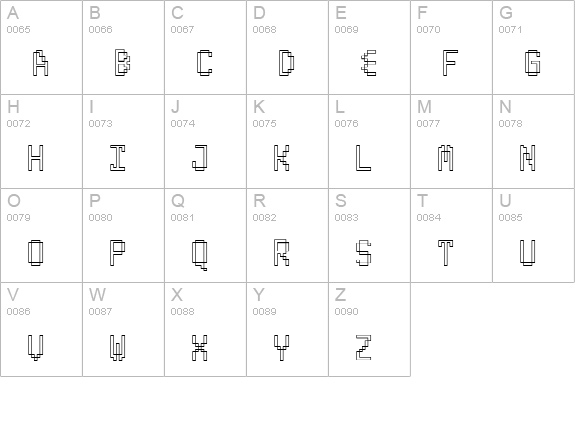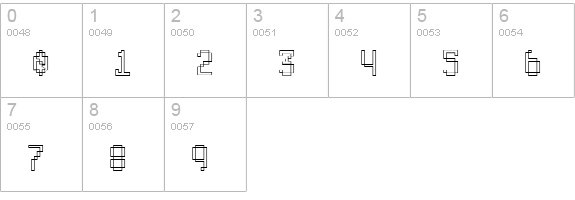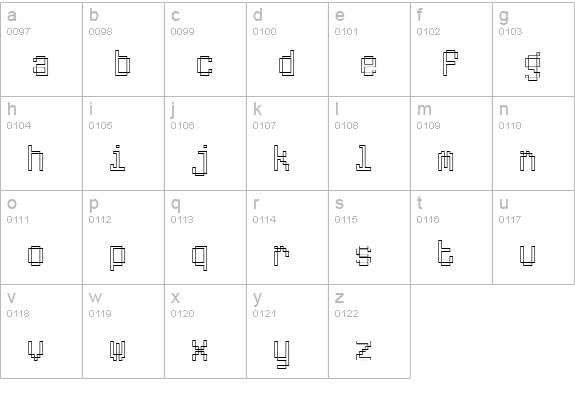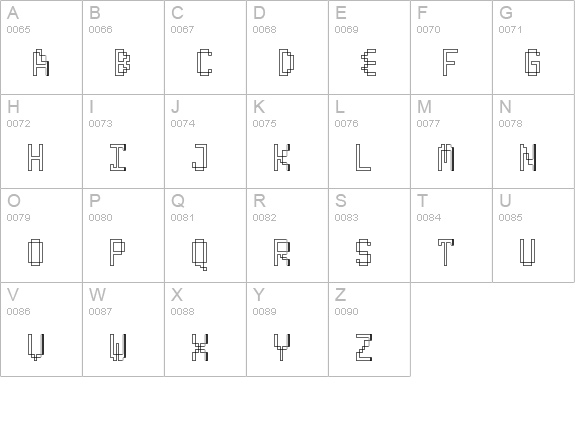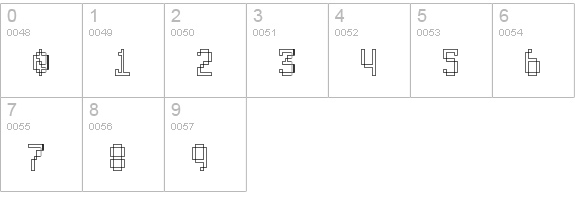
ABS6 Font Details
ABS6 font is a modern and sleek typeface that exudes sophistication and elegance. With its clean lines and sharp edges, this font is perfect for creating a professional and contemporary look in your designs. Whether you are working on a branding project, website design, or any other creative endeavor, ABS6 font will surely make your text stand out. What's even better is that ABS6 font is available for free download at FontsMarket.com. You can easily access this stylish font and enhance your projects without any cost. Don't miss the opportunity to add a touch of class to your designs with ABS6 font, now just a click away for free!